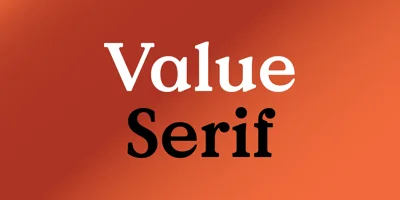
Value Serif Font
Value Serif Font is ideal for budget-conscious publishing, cost-effective marketing materials, small business branding, independent publications, educational handouts, community newsletters, local newspaper layouts, and professional documentation requiring economical yet reliable typography.
What makes Value Serif Font exciting is its exceptional cost-effectiveness that delivers professional typography excellence without compromising quality or readability. This practical typeface features well-balanced serif characteristics and optimized spacing that provide outstanding value for organizations seeking reliable, professional appearance while maintaining budget constraints and operational efficiency in their communication materials.
The Value Serif Font family includes regular, italic, and bold weights, plus essential character sets that provide fundamental typographic solutions for straightforward design projects requiring dependable performance and consistent professional presentation across various applications.
This efficient typeface delivers remarkable quality-to-cost ratio and practical functionality, making Value Serif Font an essential resource for budget-minded designers and organizations. The font's reliable character makes it perfect for businesses wanting to maintain professional standards while controlling operational expenses. Small businesses and educational institutions particularly appreciate its ability to deliver polished results without premium typography costs. The thoughtfully designed letterforms ensure consistent legibility and professional appearance across all standard applications from business correspondence to educational materials. Whether you're creating cost-effective marketing campaigns or developing materials for community organizations, this font provides the perfect combination of economic efficiency and professional credibility. Creative professionals consistently choose this typeface for projects requiring that ideal balance of budget consciousness and quality results, making it invaluable for organizations that need professional typography solutions while maintaining strict cost controls and operational sustainability.